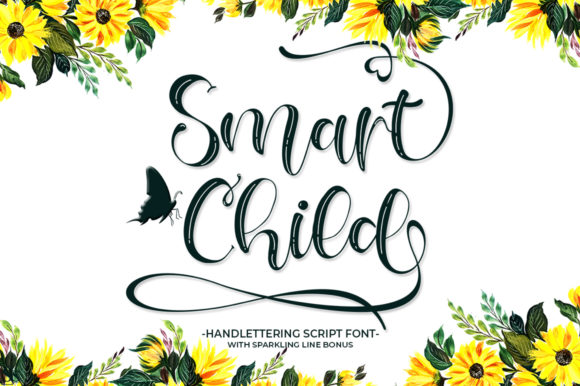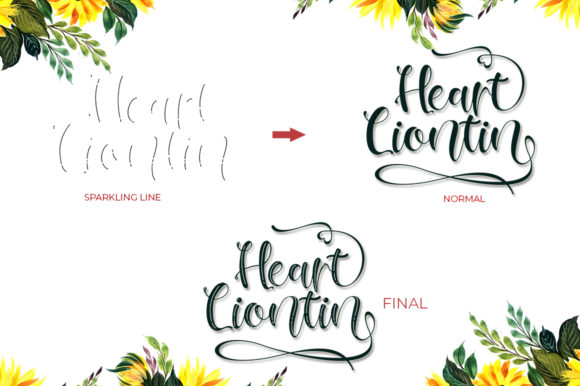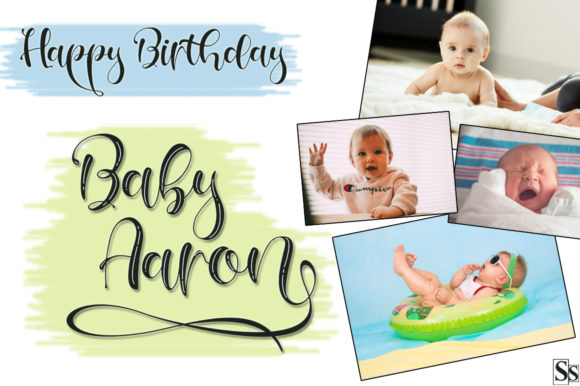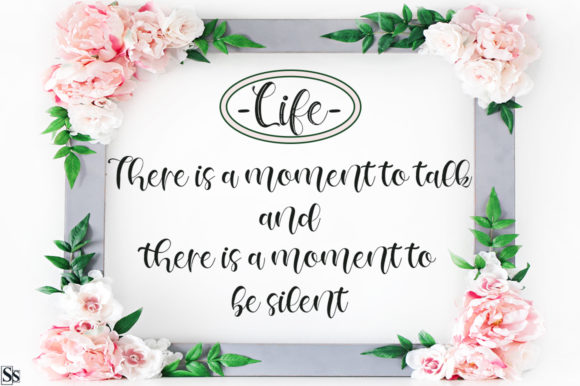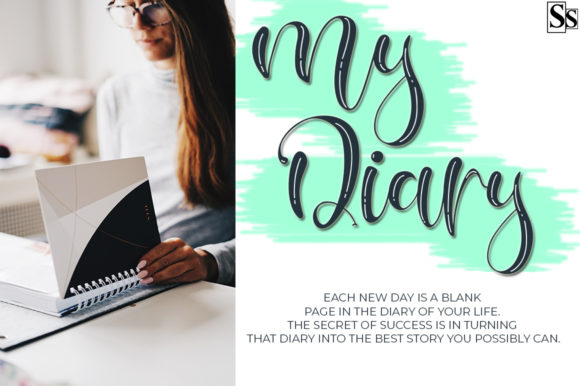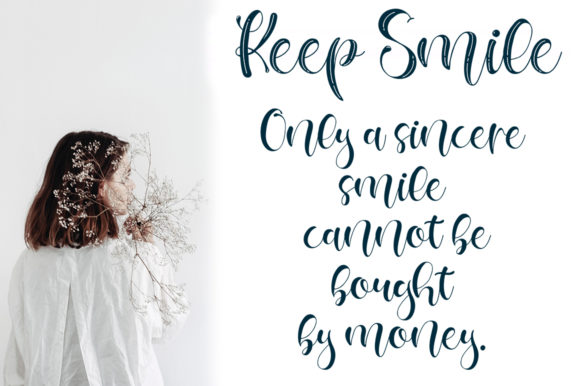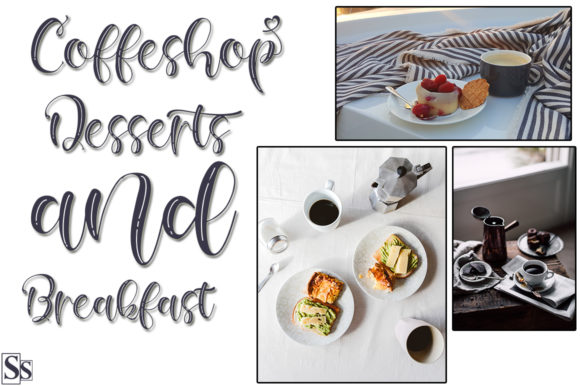
Smart Child Font
About Smart Child Font
Smart Child is a beautiful modern brush font with an organic, dynamic and energetic style. It can be used for various purposes. such as titles, signatures, logos, wedding invitations and more.
Add a creative spark to your next project using this lovely font.